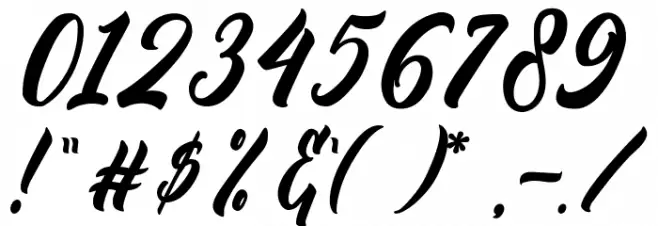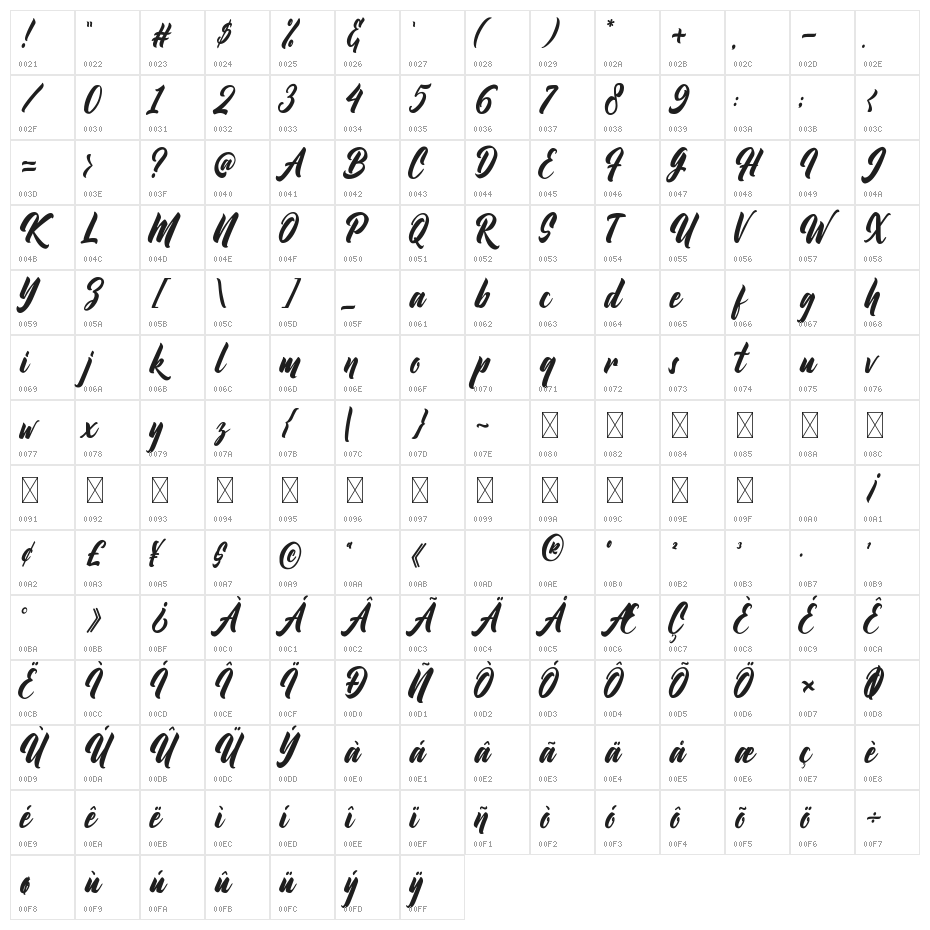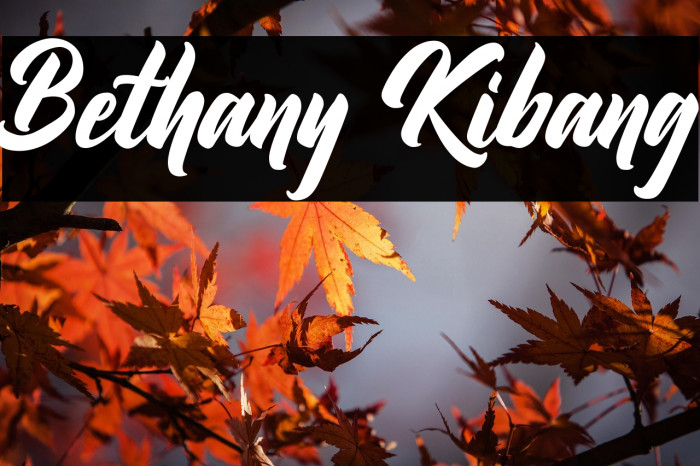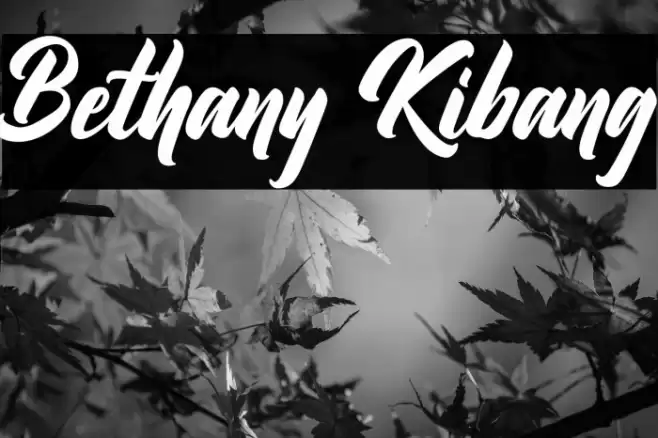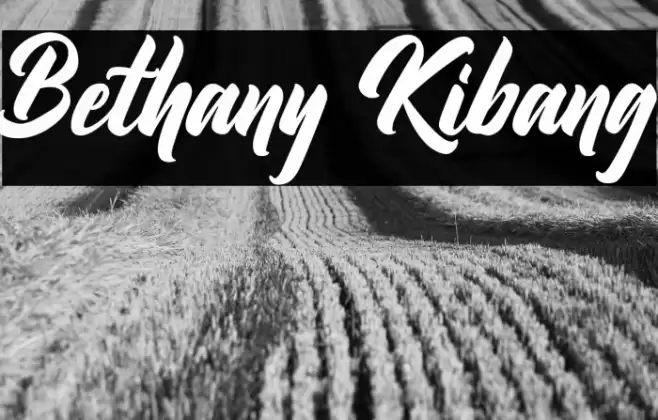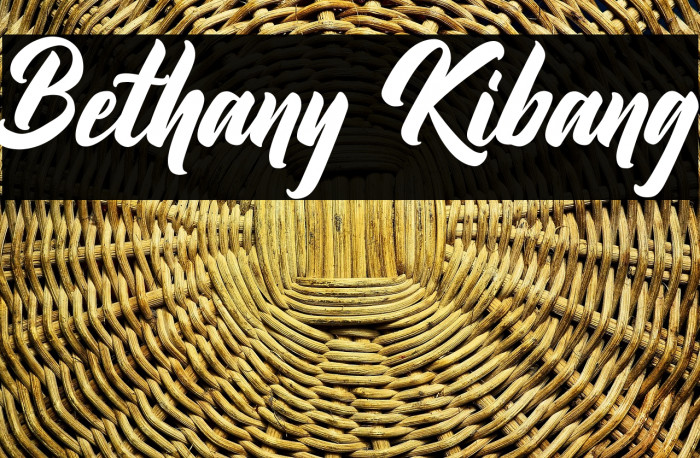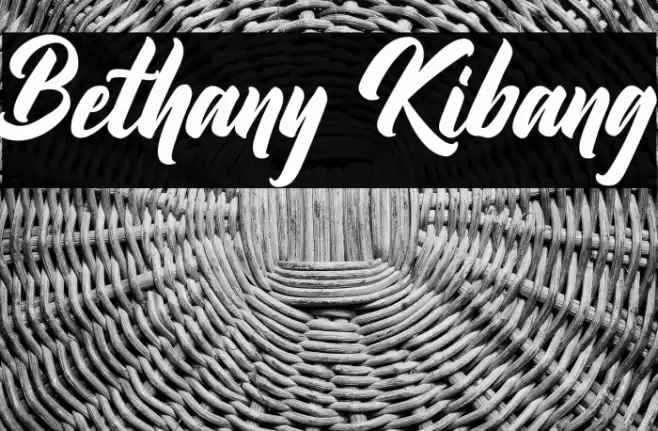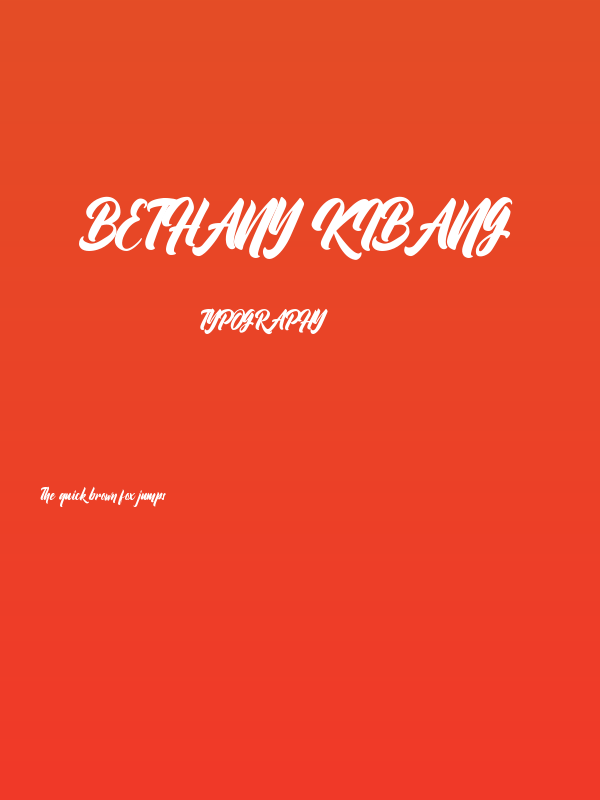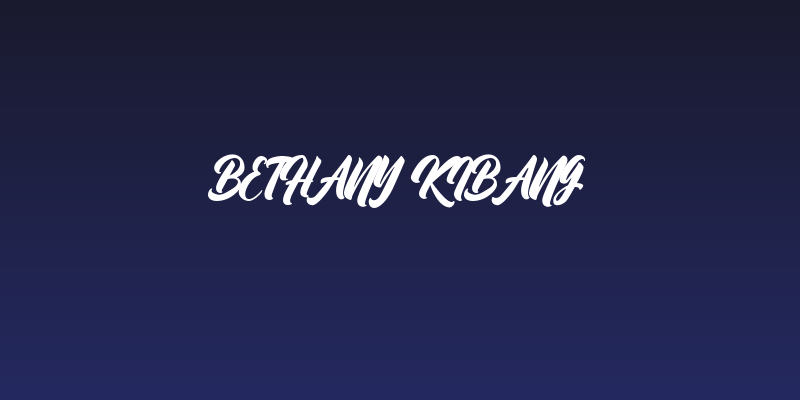
Bethany Kibang Font
Bethany Kibang Description
This font exudes a bold and dynamic script style, characterized by its fluid, cursive strokes and energetic flair. The letters are connected, creating a seamless flow that mimics natural handwriting. The uppercase letters are particularly striking, with exaggerated loops and swashes that add a sense of movement and elegance. The lowercase letters maintain a consistent style, offering a harmonious balance between readability and artistic expression. Numbers and special characters are designed with the same attention to detail, ensuring a cohesive look across all elements. This font is ideal for projects that require a personal touch, such as invitations, branding, or any creative endeavor that benefits from a handwritten aesthetic.
| Proposed Projects | Ideal for invitations, branding, logos, and creative projects needing a personal touch. |